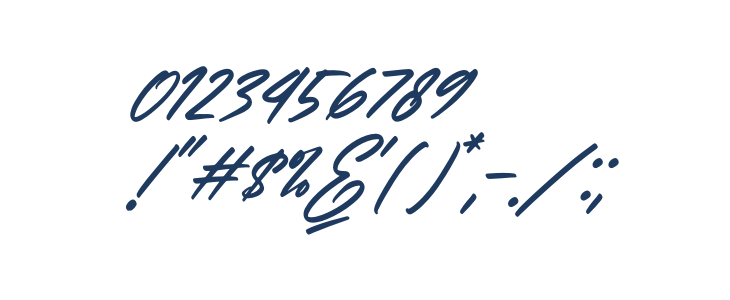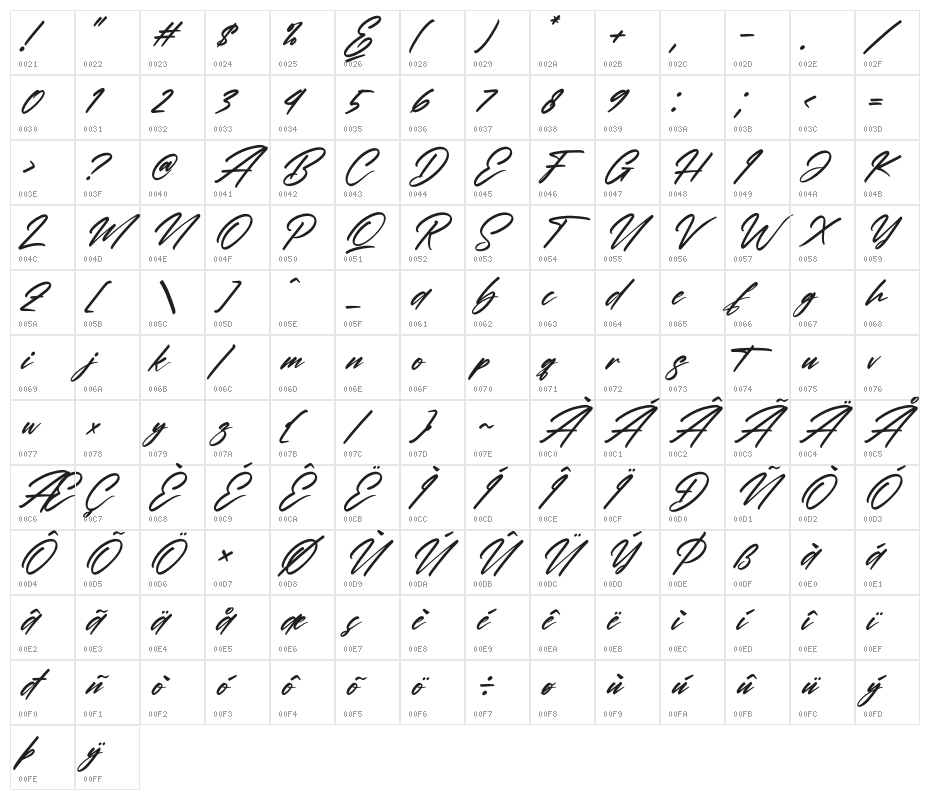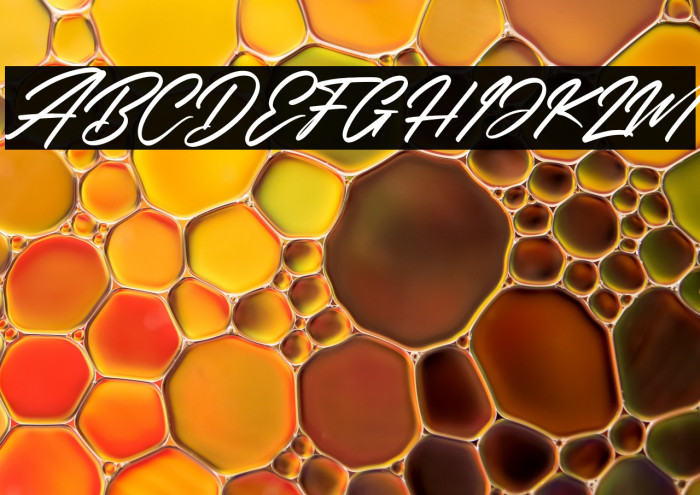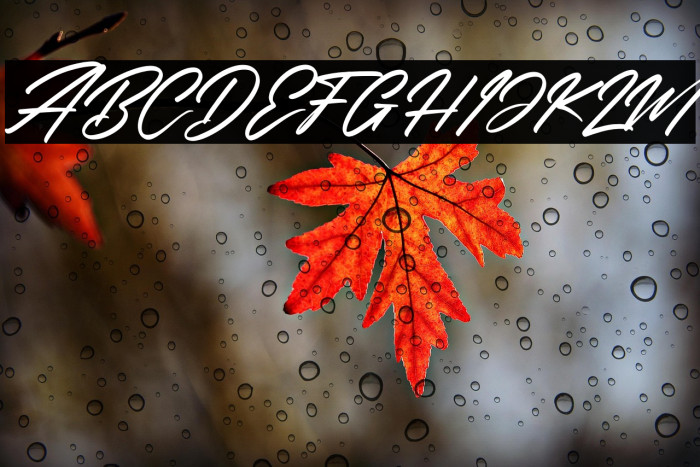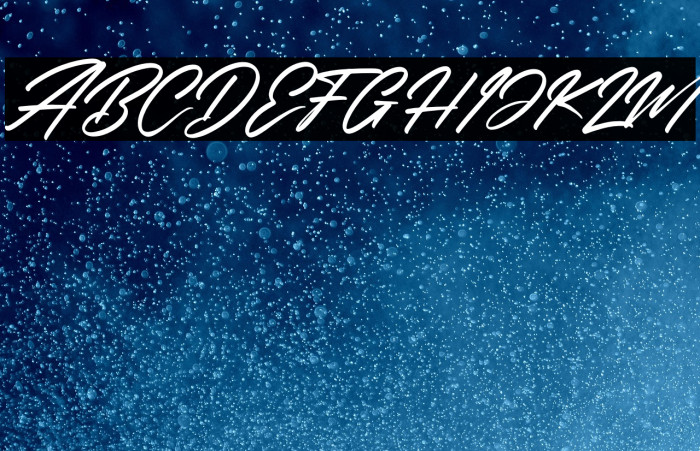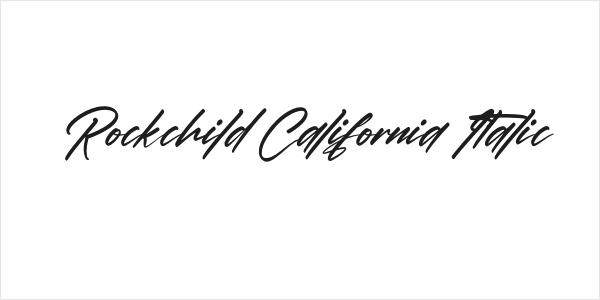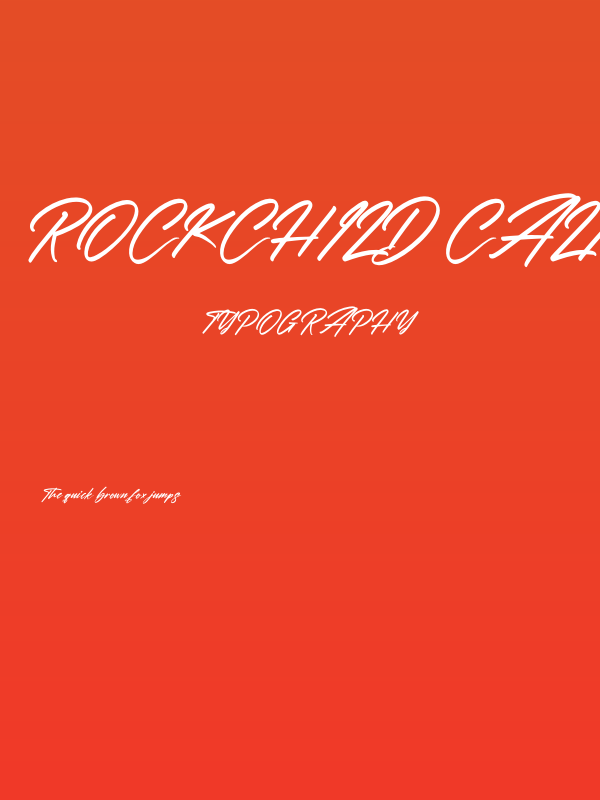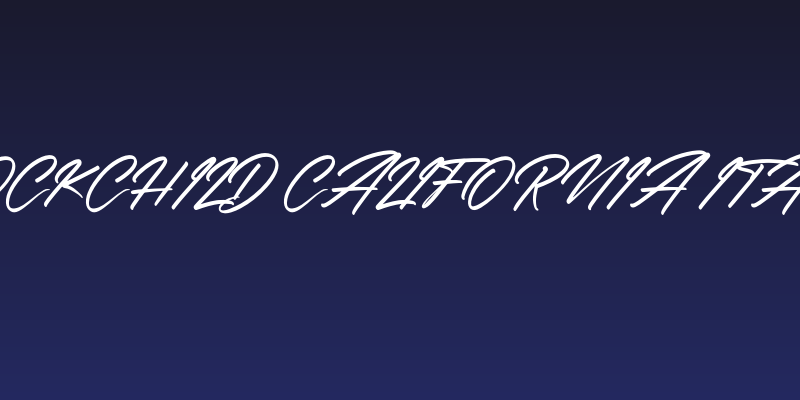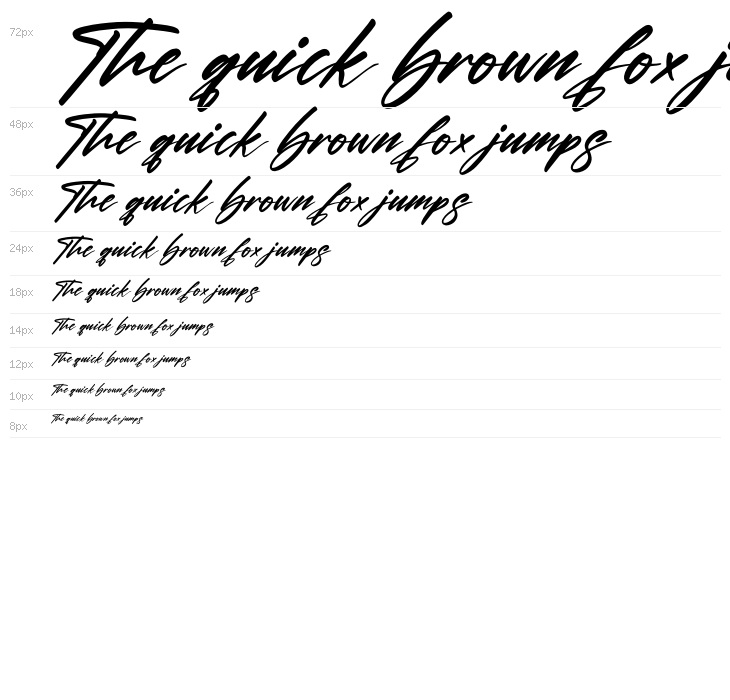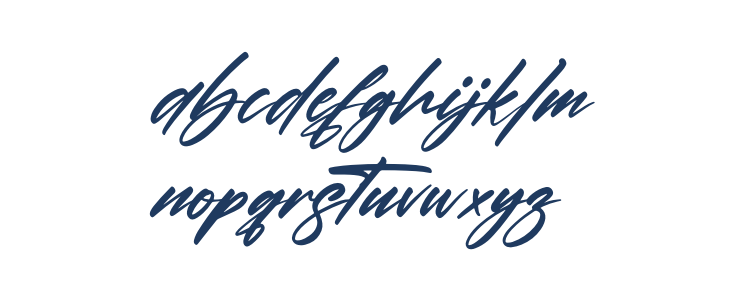
Rockchild California Italic Font
Rockchild California Italic Description
This font features a dynamic and flowing script style, characterized by its elegant and cursive letterforms. The uppercase and lowercase letters are designed with a consistent slant, giving them a sense of motion and fluidity. The strokes are bold and confident, with a high contrast between thick and thin lines, adding to the font's expressive nature. The numerals and special characters maintain the same cursive style, ensuring a cohesive look across all text elements. This font exudes a sense of sophistication and creativity, making it ideal for projects that require a personal touch.